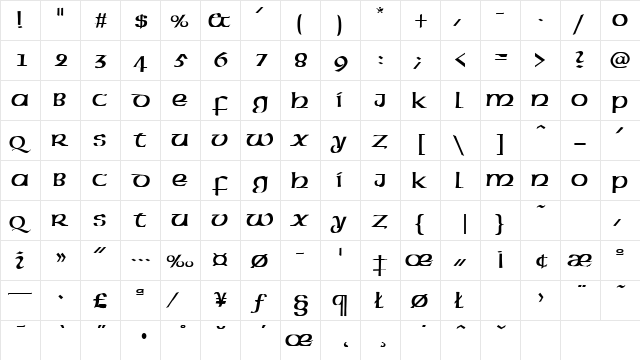
ALGHERO Regular Font Preview
ALGHERO Regular
ALGHERO Regular Font Details
Design Context for ALGHERO Typeface
ALGHERO takes a measured approach to typography — its balanced proportions and neutral character make it a reliable workhorse for both digital and print work.